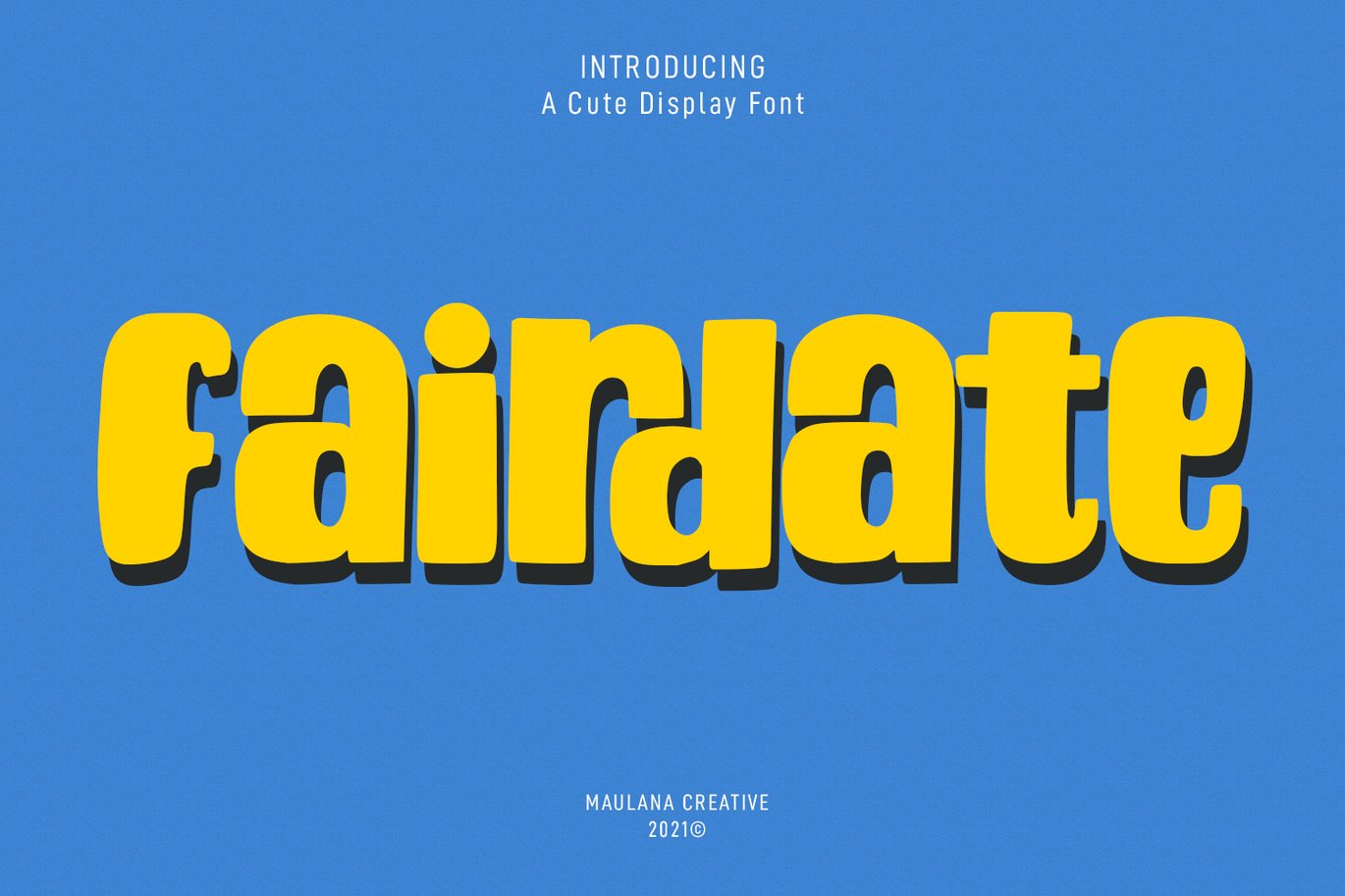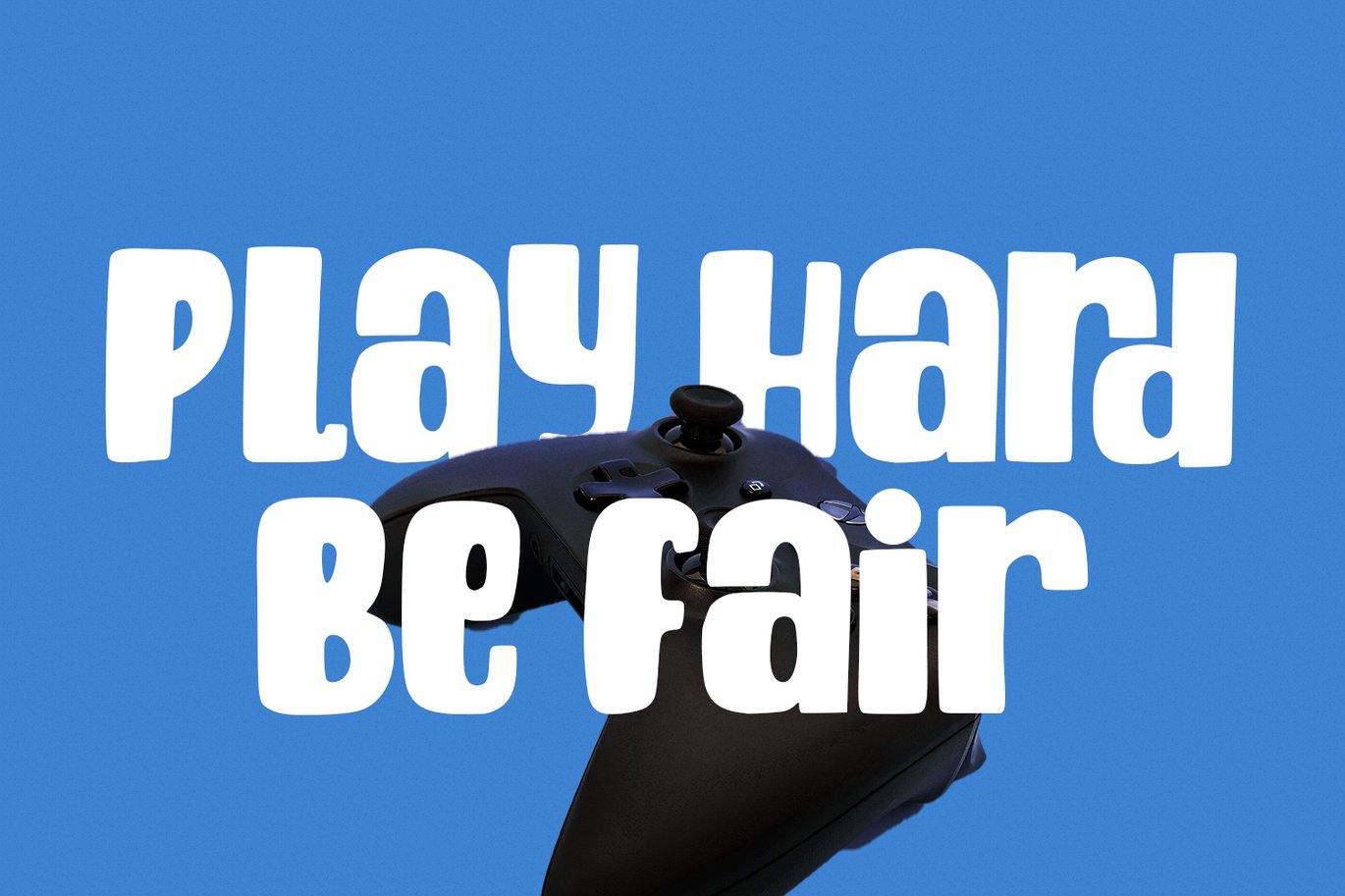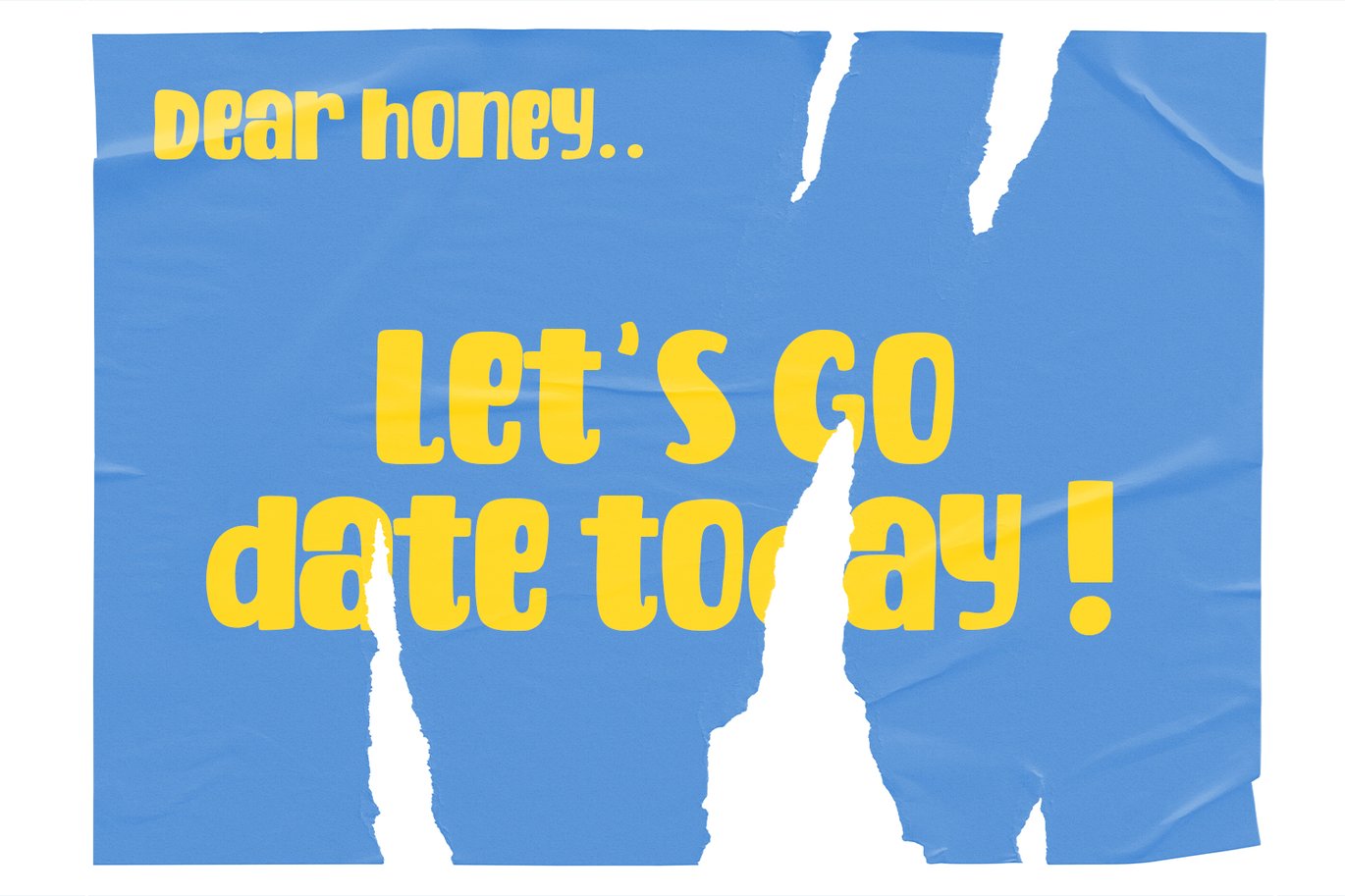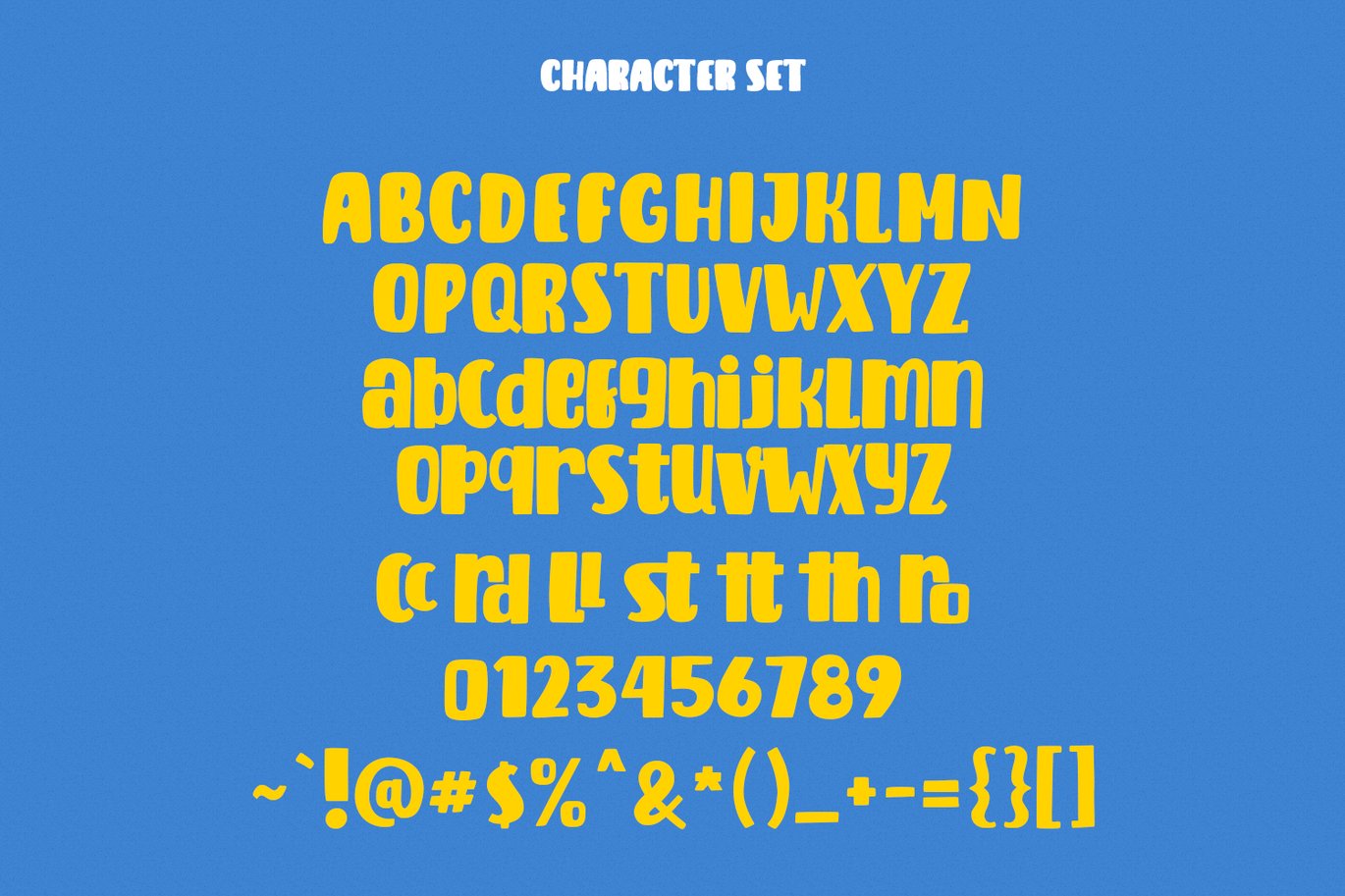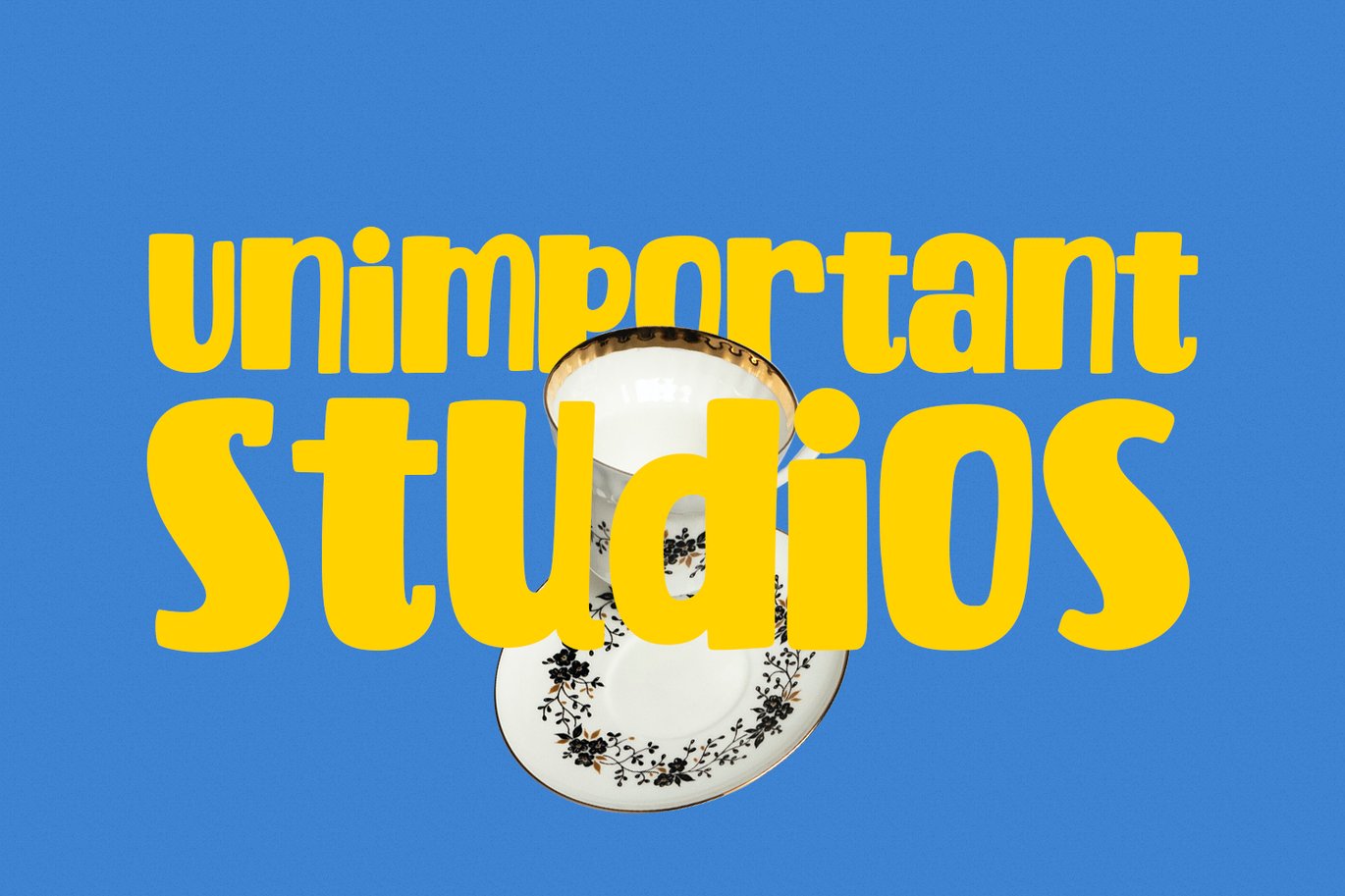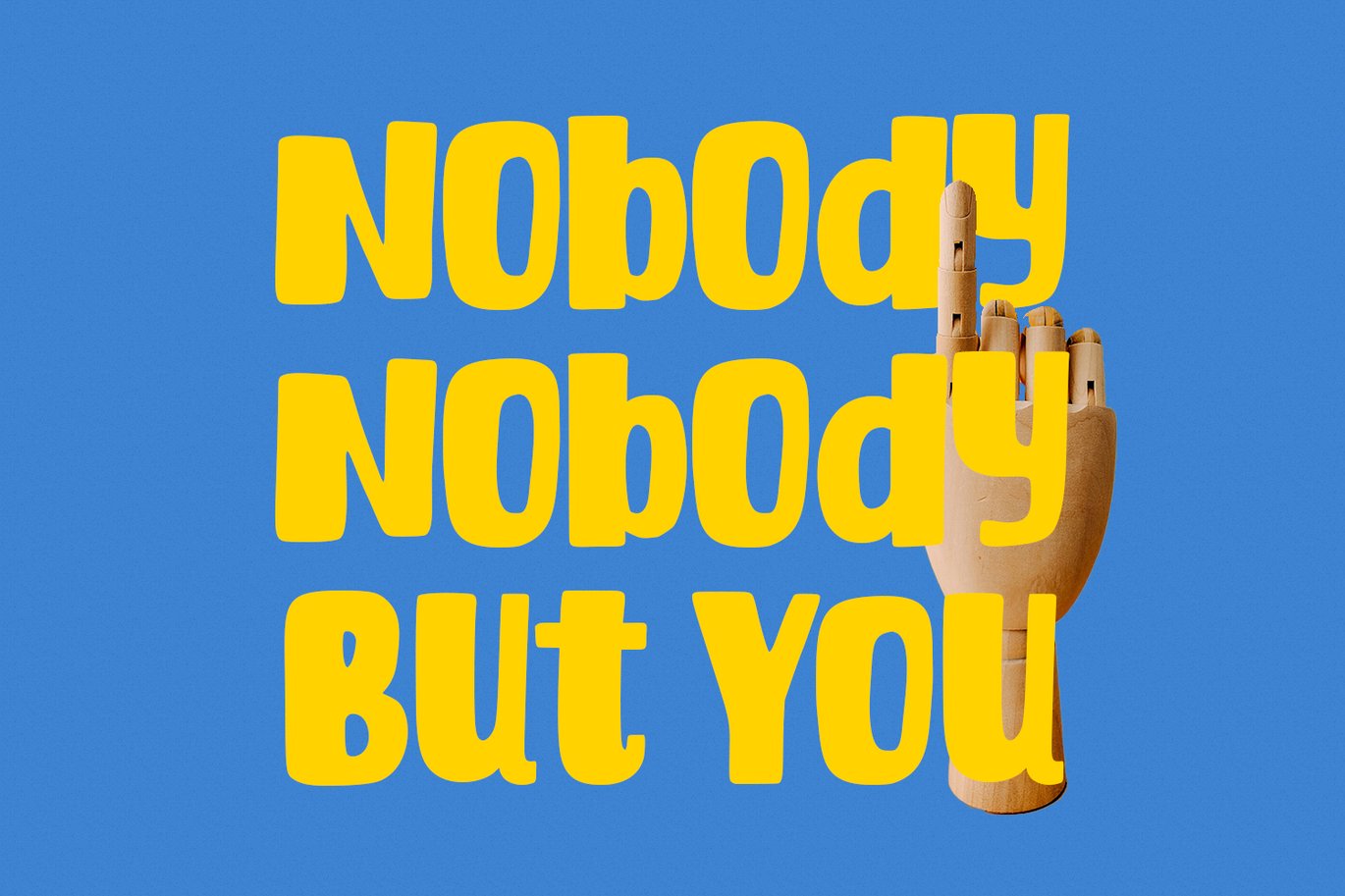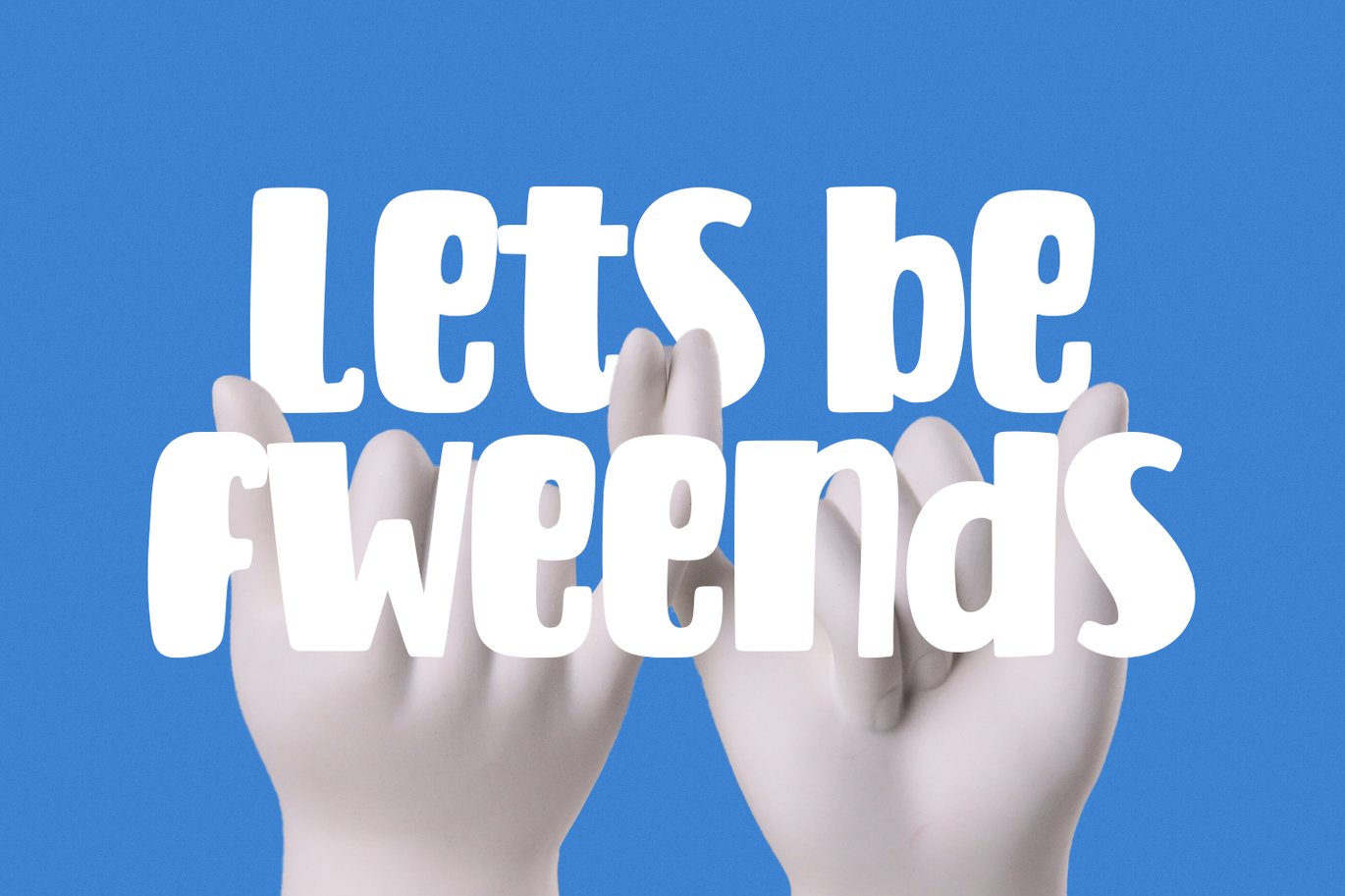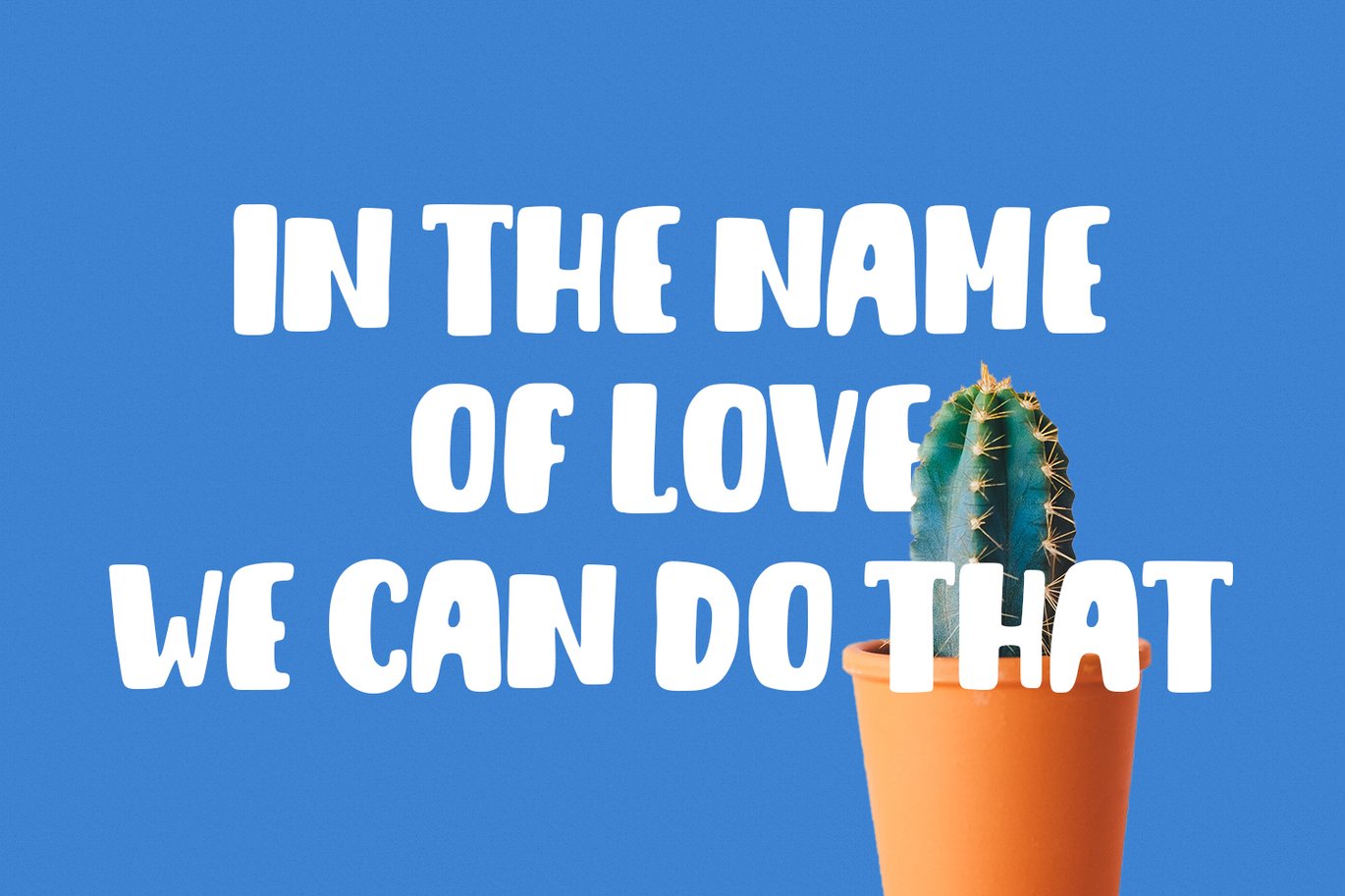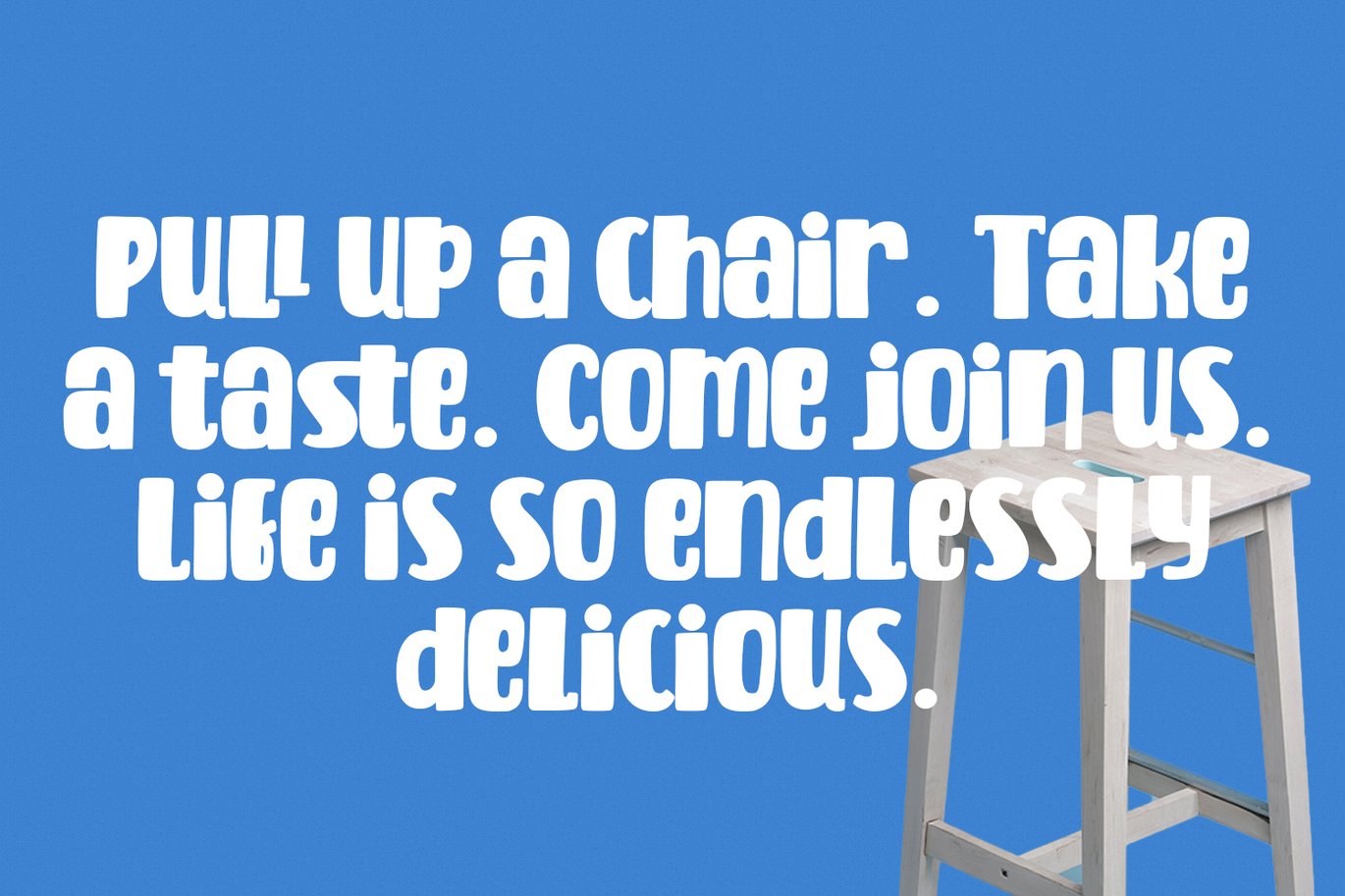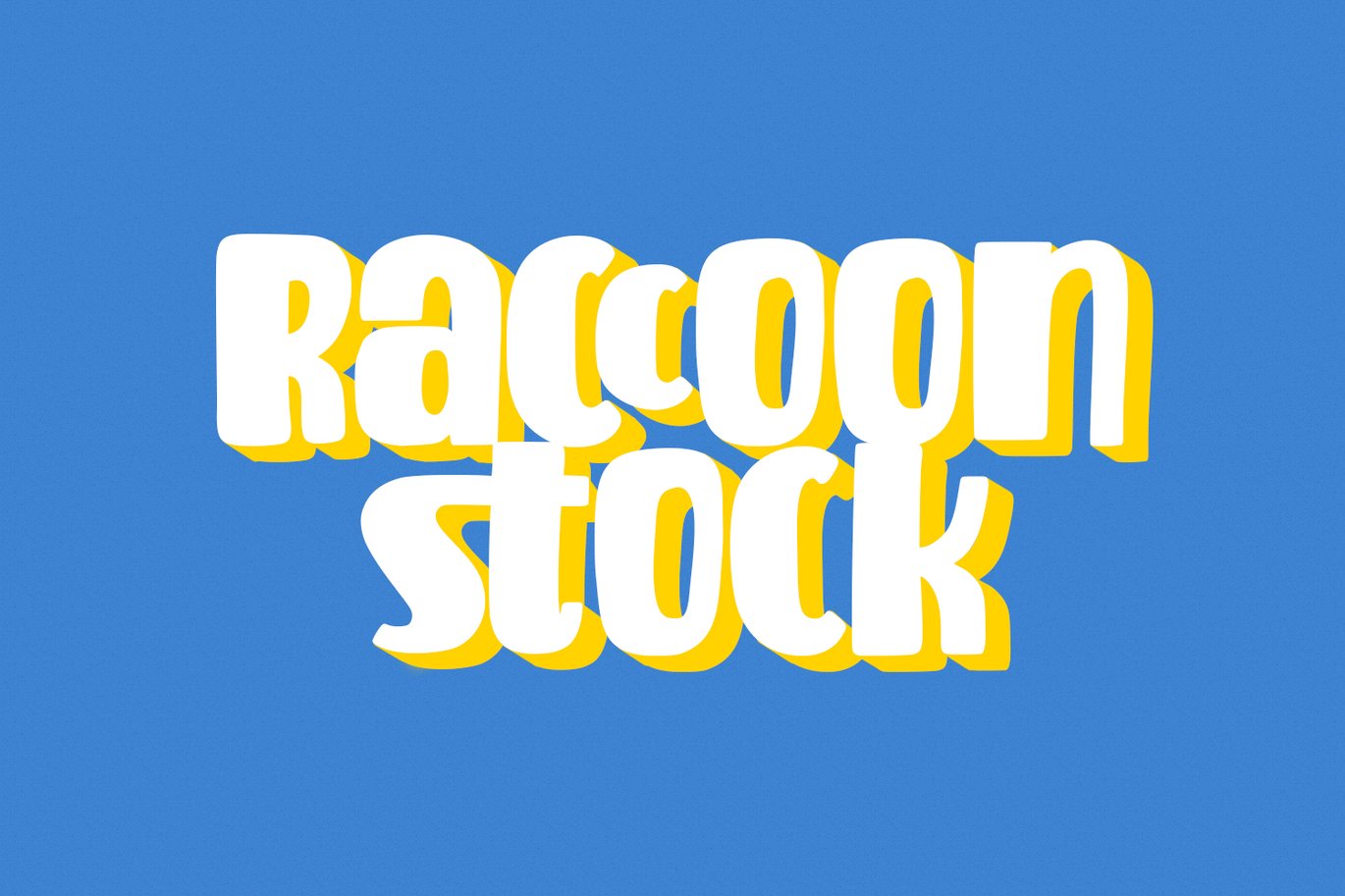
Fairdate Cute Display Font
Fairdate is a unique cute handwritten display font. With Bold stroke, upright and fun character with a bit of ligatures and lowercase alternate. To give you an extra creative work. Fairdate font support multilingual more than 100+ language. This font is good for logo design, Social media, Movie Titles, Books Titles, a short text even a long text letter and good for your secondary text font with script. Make a stunning work with Fairdate font.